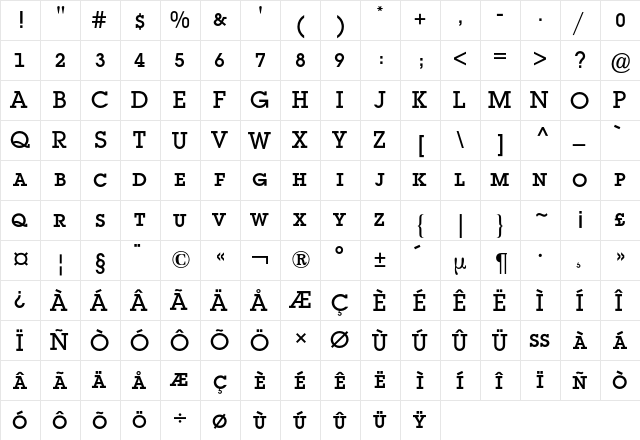
Lubalin Expert BQ Regular Font Preview
Lubalin Expert BQ Regular
Design Context for Lubalin Expert BQ Typeface
Lubalin Expert BQ offers clean, dependable letterforms without strong stylistic allegiance, making it a practical choice for designers who need flexibility.